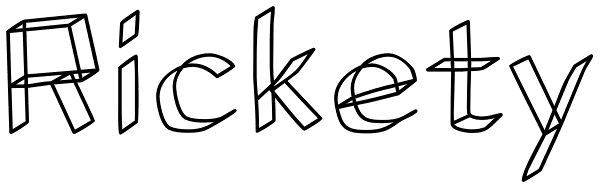
Rickety
Rickety was inspired by a lettering style that my friend Chris May had been using in his silkscreen projects. I collaborated with him on the full character set to produce this digital version. It has a junk art feel that would work well in...